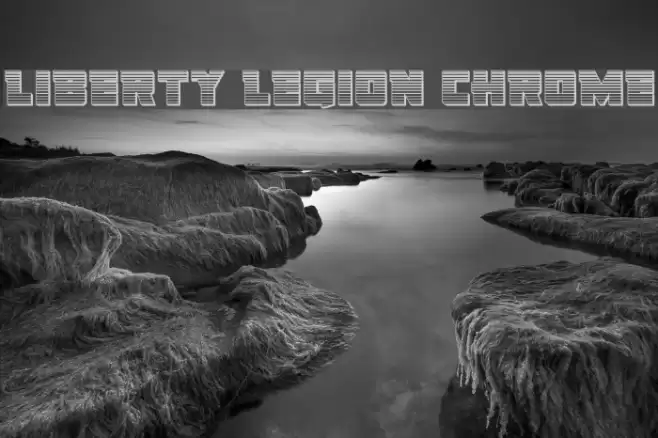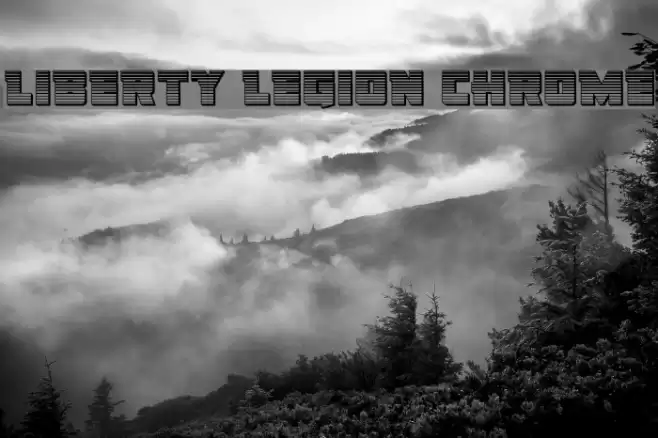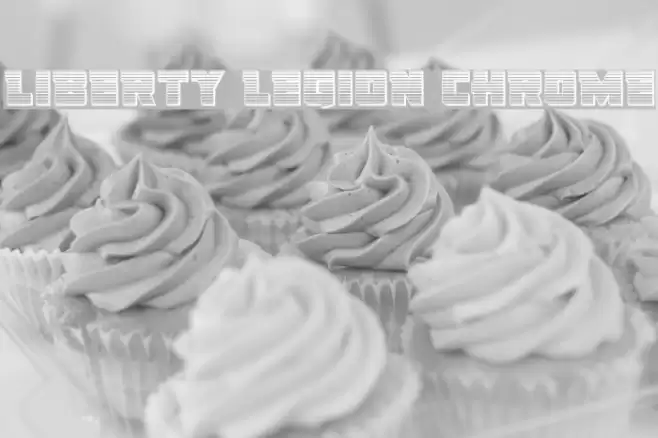
Liberty Legion Chrome Font
Liberty Legion Chrome Description
This font features a bold, three-dimensional design with a chrome-like appearance. The characters are constructed with multiple horizontal lines, creating a layered effect that gives a sense of depth and texture. The uppercase and lowercase letters, along with numbers and special characters, maintain a consistent style that is both modern and futuristic. The font's unique structure makes it stand out, ideal for projects that require a strong visual impact.
A bold, three-dimensional font with a chrome-like, layered design from Uncategorized fonts.
- Proposed Projects: Ideal for use in sci-fi themed projects, video game titles, posters, and branding that requires a futuristic and bold aesthetic.